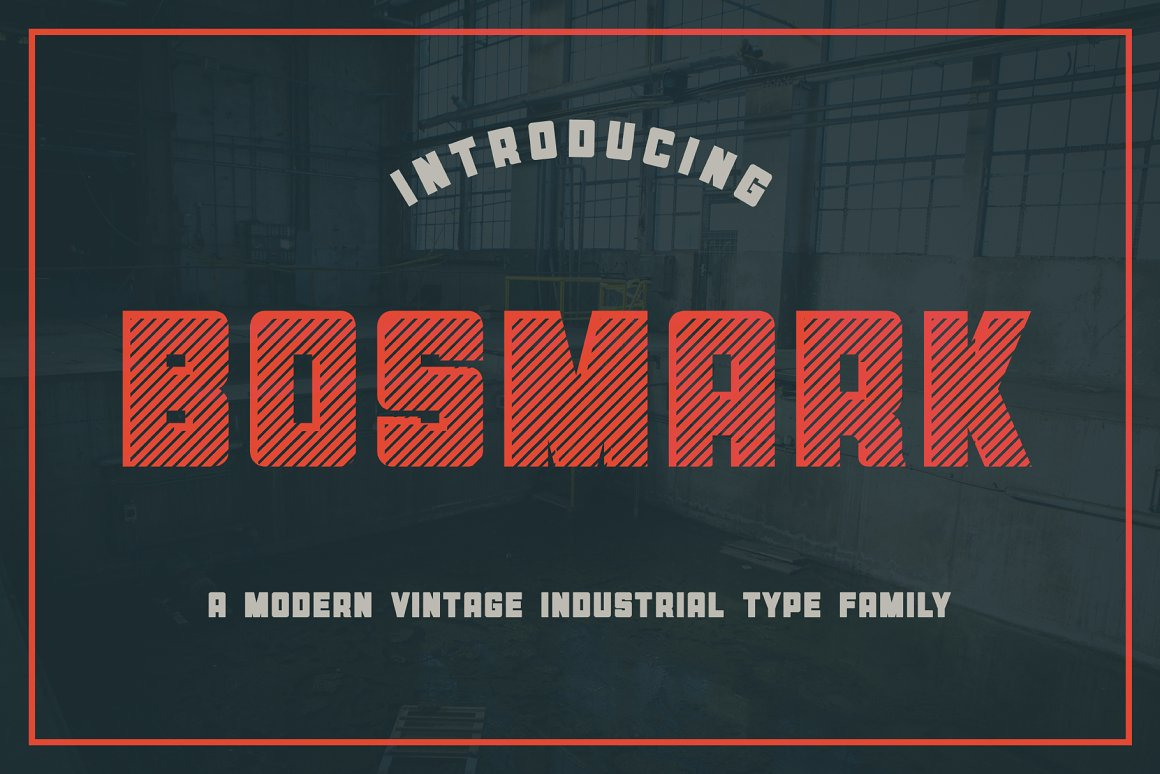
Bosmark Typeface
Bosmark is a bold, display font inspired by retro industrial signages and billboards. Six available styles give the possibility of different font combinations. Bosmark typeface is great for modern and retro style logos, badges, titling, posters, signboards and more.
Bosmark comes in six styles:
- regular
- round
- outline
- hatch
- rough
- fabric